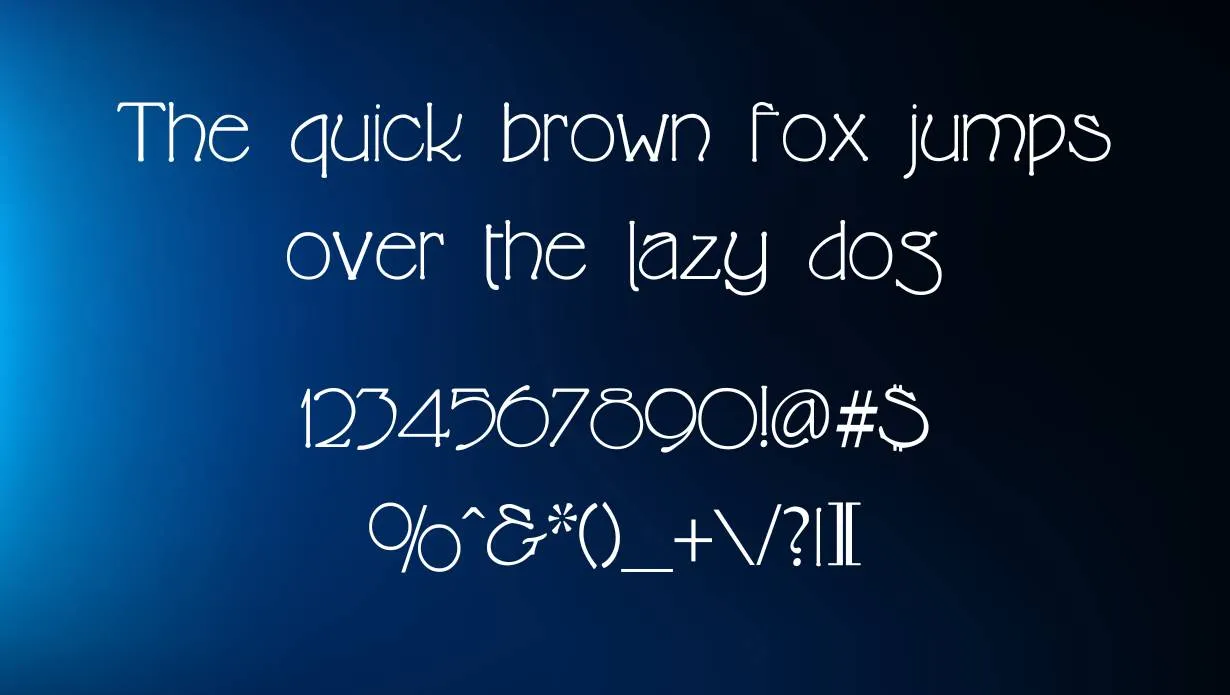
The Cricket font is known for its playful and animated style, making it a popular choice for designs that need a fun and unique element. With its whimsical and irregular letters, this font is ideal for conveying a lively and energetic message.
This font is commonly used in children’s books, posters, or playful designs. The weight of the Cricket font is typically light, offering a whimsical and playful appearance freezone font.
| Name | Cricket Font |
| Designer | Alexey Kustov |